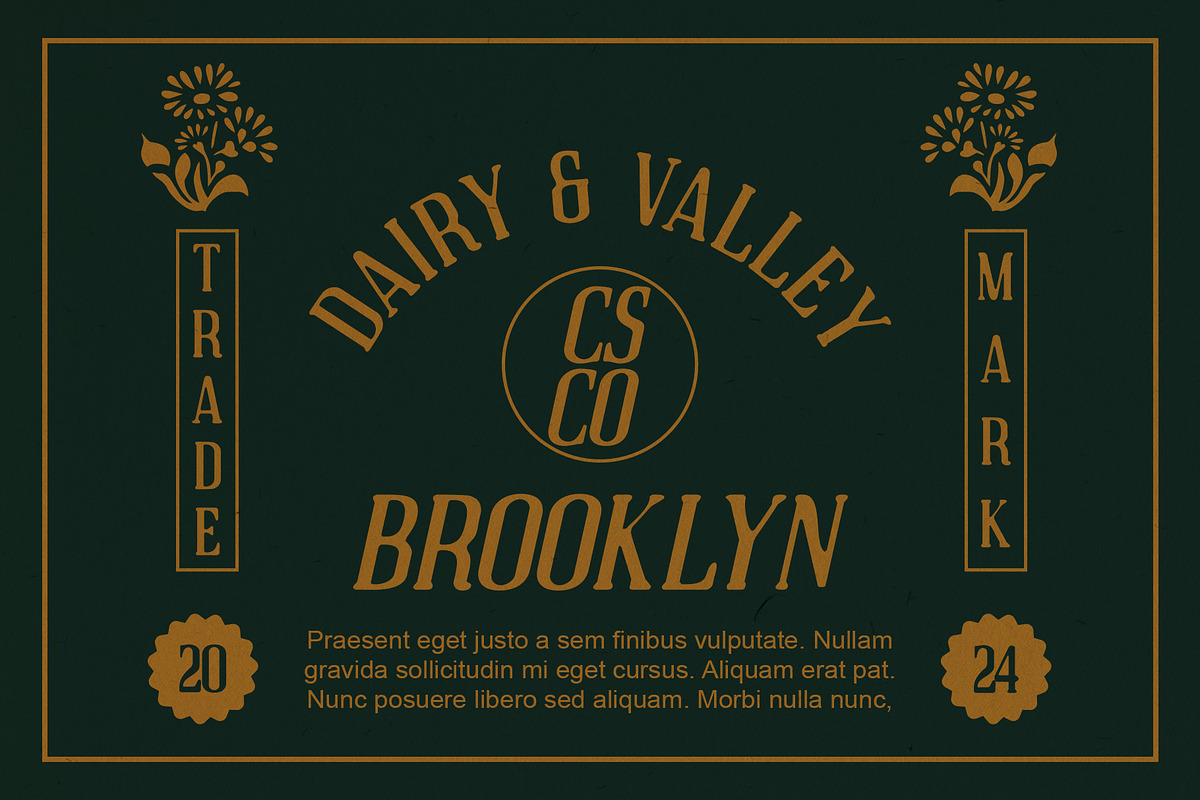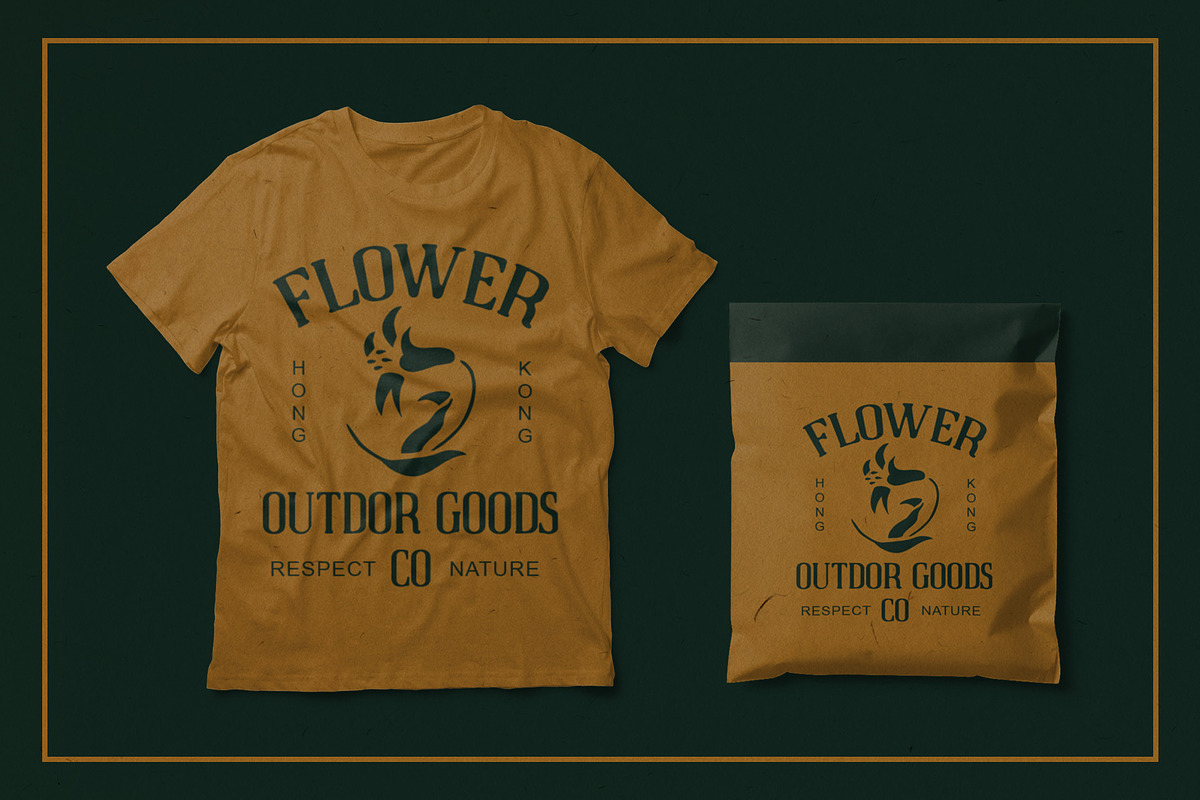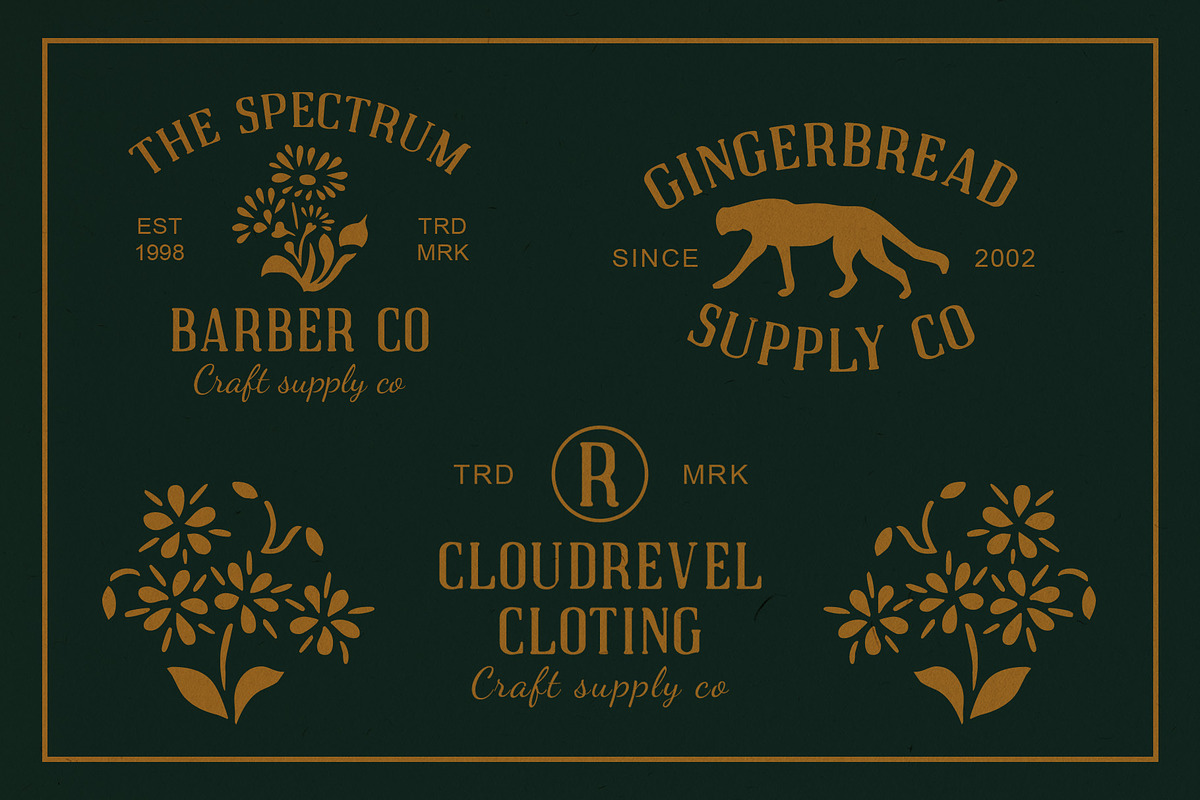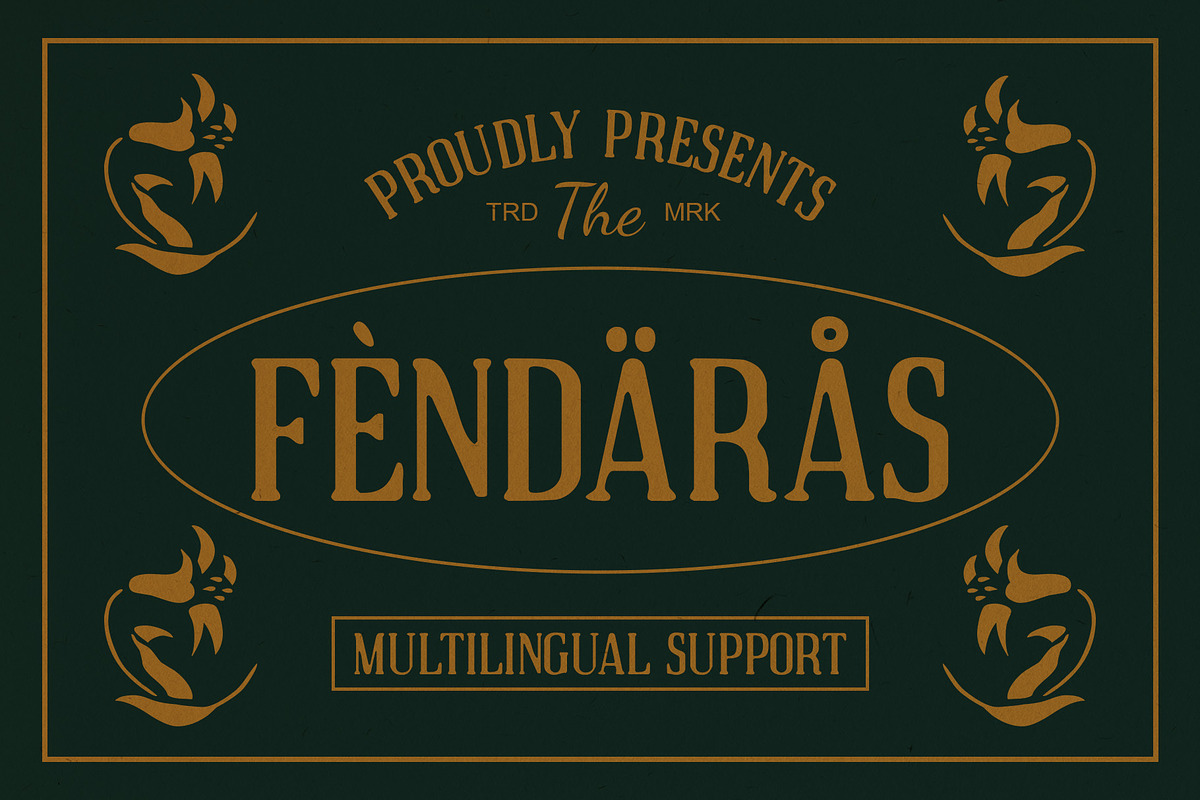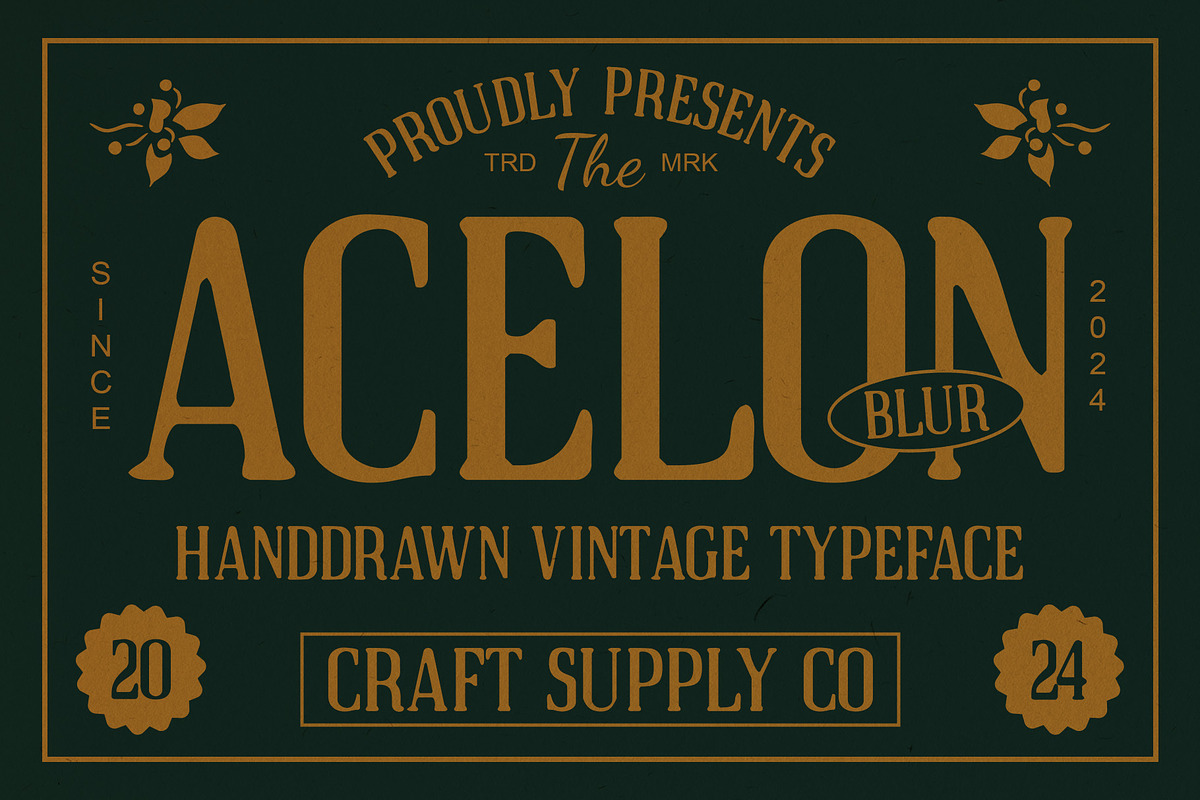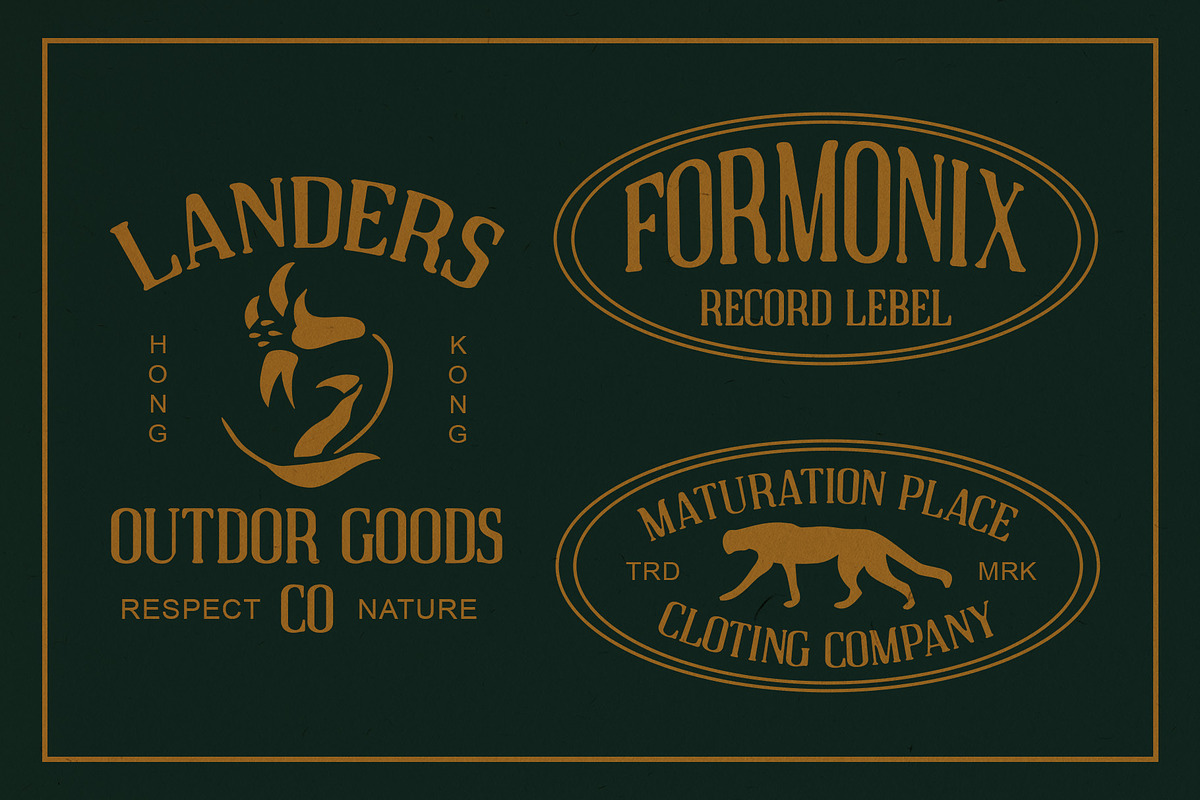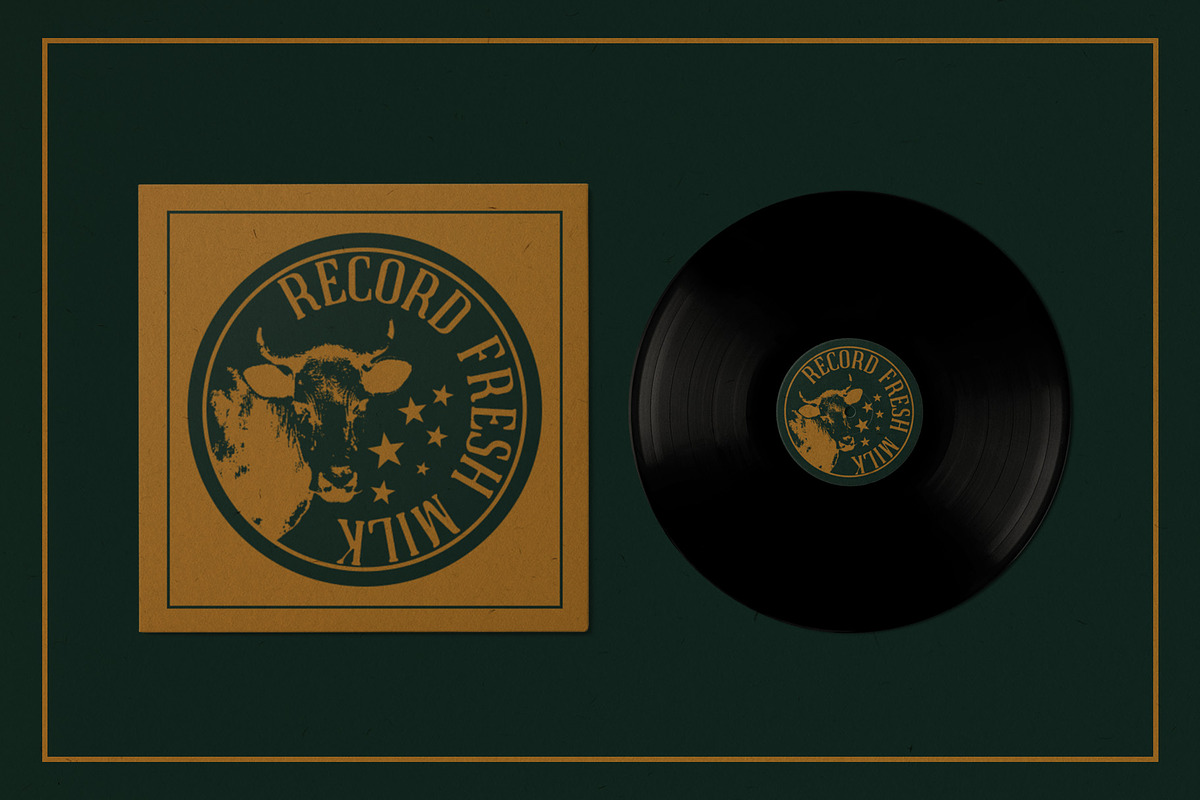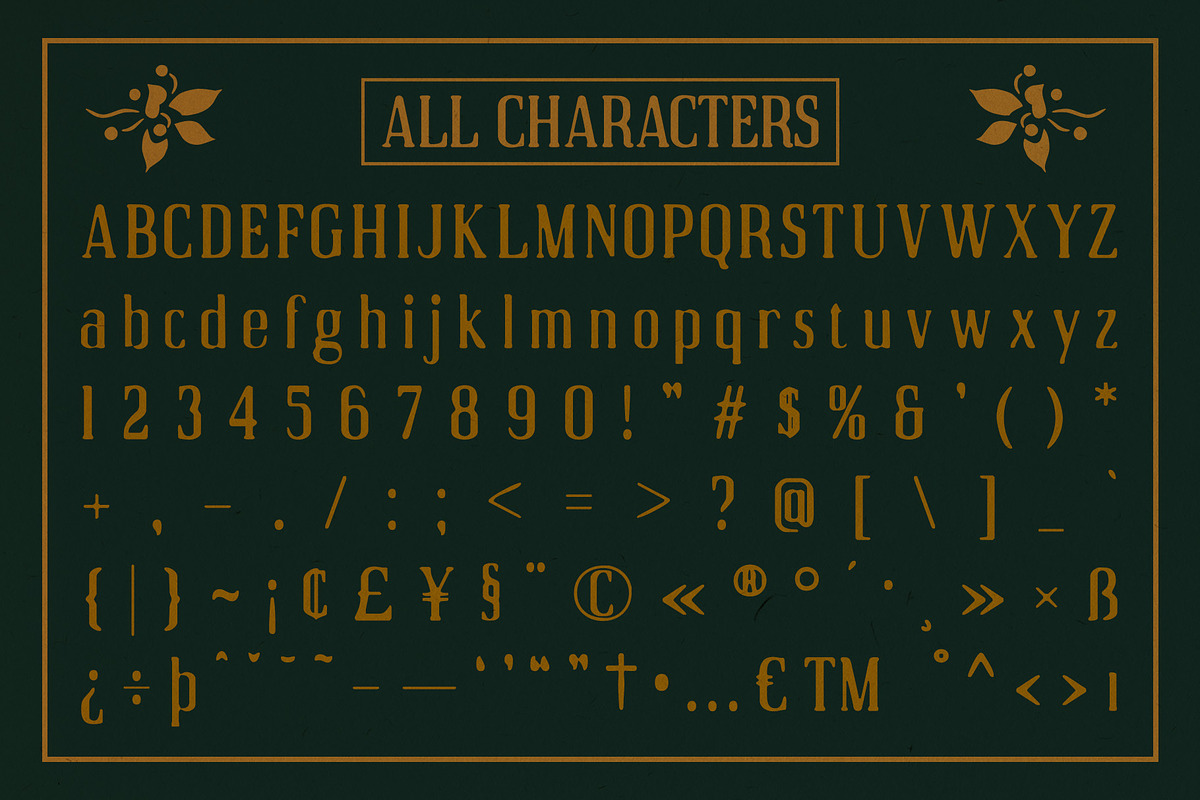
Acelon Blur
Acelon Blur: Vintage-Inspired Display Typography
Captivating Hand-Drawn Aesthetic Acelon Blur embodies a charming hand-drawn style, adding a nostalgic touch reminiscent of vintage signage and branding. Its irregular strokes and subtle imperfections give it an authentic, artisanal feel, evoking memories of simpler times.
Serif Design with Moderate Contrast Featuring a serif design with moderate contrast, This font strikes the perfect balance between elegance and readability. The carefully crafted serifs and letterforms ensure clear legibility, even at smaller sizes, while still maintaining a distinctive vintage character display.
Vintage Appeal with Handcrafted Details The hand-drawn effects infused into This font evoke a sense of authenticity and craftsmanship. Each character bears the marks of meticulous handwork, with subtle variations in line weight and texture, adding to its vintage charm and character.
Versatile Usage Across Projects From posters and packaging to digital media and branding, This font vintage-inspired aesthetic lends character and warmth to any design project. Whether used as a headline font to grab attention or as body text for a touch of nostalgia, This font ensures your designs stand out with timeless allure.
- Acelon Blur Regular
- Acelon Blur Italic